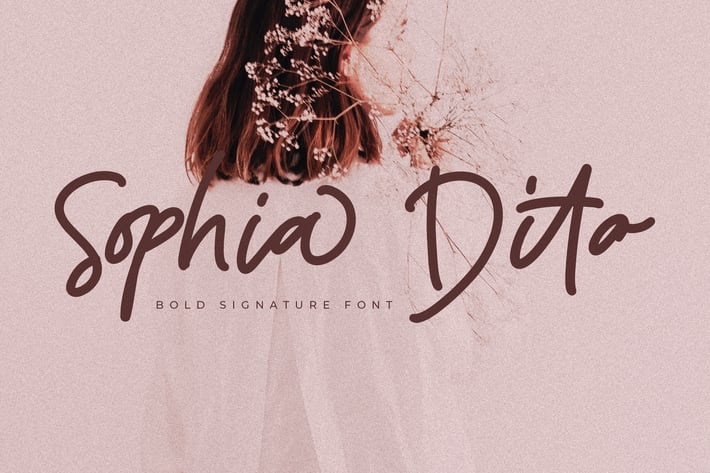
Sophia Dito Signature Font
Sophia Dito Signature that contains a lowercase, uppercase, symbol, and also support multi-language. There’s a lot of ligature in this font.Sophia Dito Signature also comes with ligatures, stylistic alternates and many more. this font suitable for fashion, branding, catalog and other design what you want.